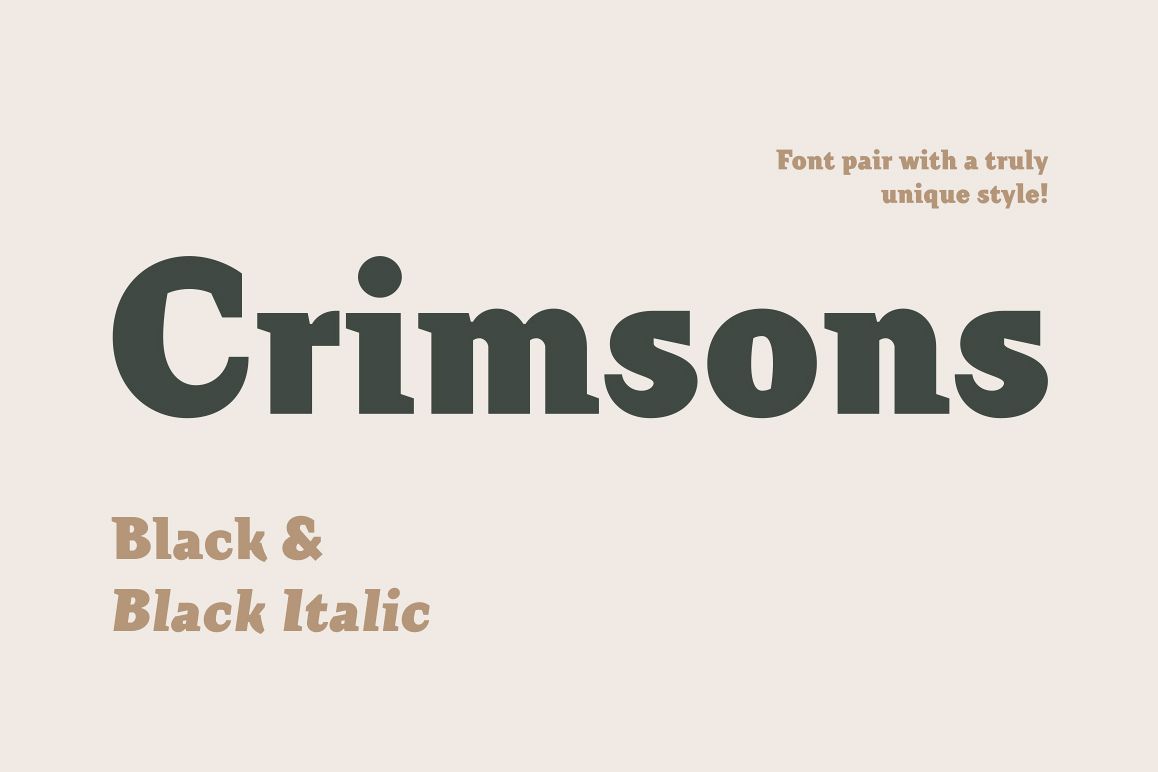
Crimsons — Black & Black Italic
Crimsons Black & Crimsons Black Italic is an excellent font pair for the most refined design.
Sometimes we only need a few faces to make our creative ideas come to live. For this specific purpose we've split some of our popular font families into all-sufficient font pairs.
Crimsons is unique and very unusual font, it combines modern grotesque, medieval motifs and serif proportions. These typefaces will be a useful part of a designer collection. Crimsons is ideal for short and emotional inscriptions. Titles, names, logotypes — this is his element.